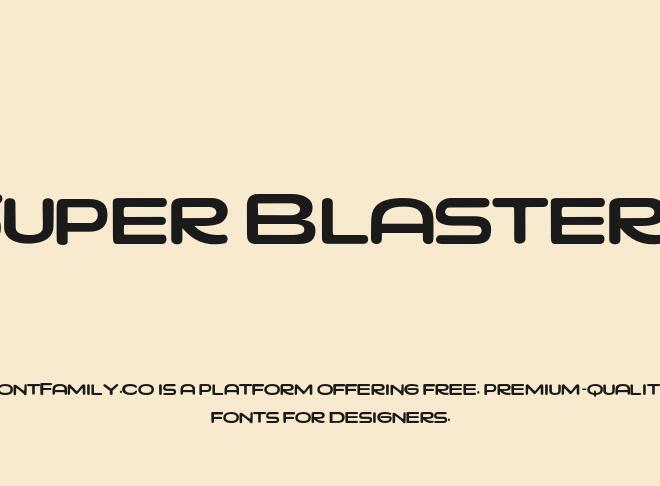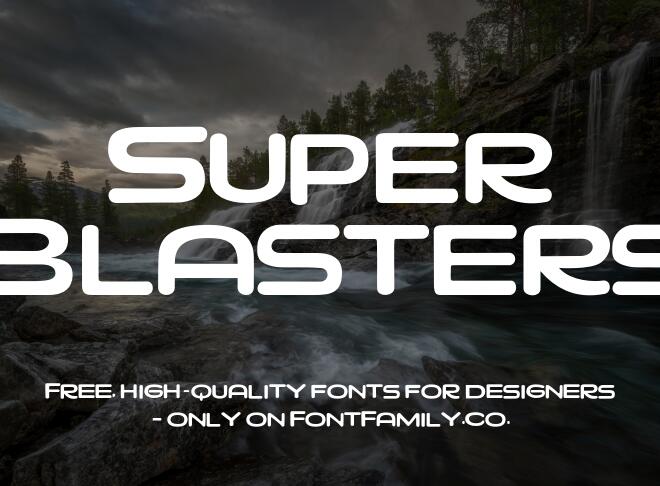
Super Blasters Font
Super Blasters Font, crafted by Pixel Foundry, is a bold and geometric display typeface that encapsulates a futuristic aesthetic. Released in 2018 under the Open Font License, it has quickly gained popularity among designers for its unique style. The font's structure, inspired by science fiction themes, makes it a perfect choice for tech startups, gaming interfaces, and digital marketing campaigns. Compared to similar fonts, Super Blasters Font stands out due to its clean lines and sharp geometric shapes. Its bold style offers excellent readability, making it ideal for headlines and logos. This font, with its dynamic and modern character, can take your design projects to the next level. Embrace the future with Super Blasters Font, your go-to choice for impactful and contemporary design.